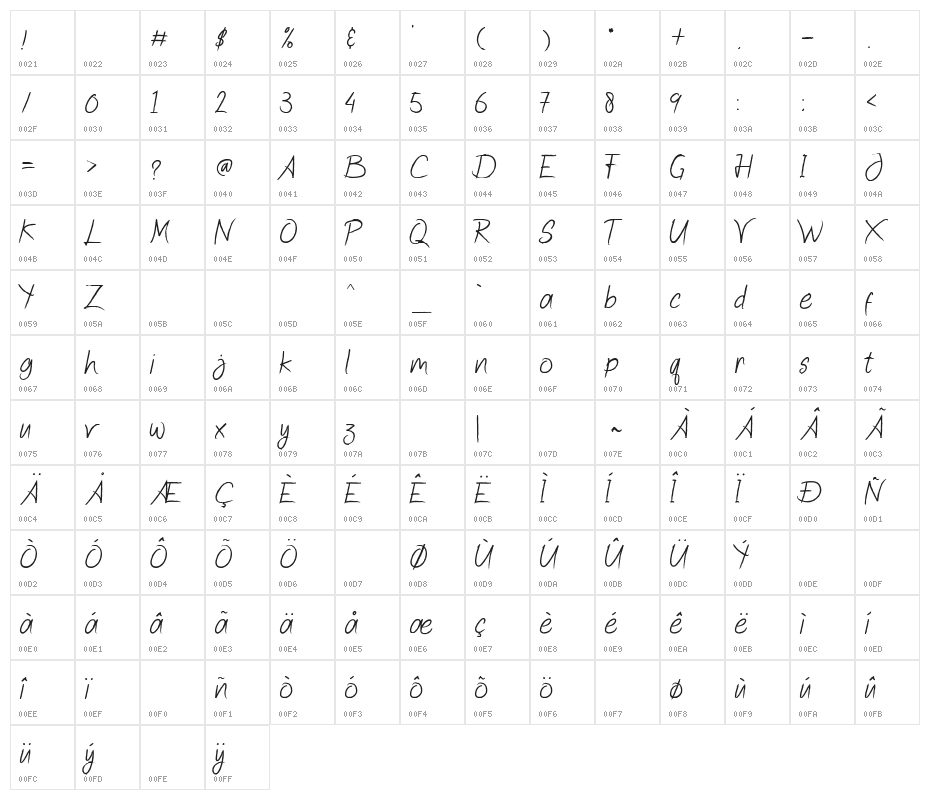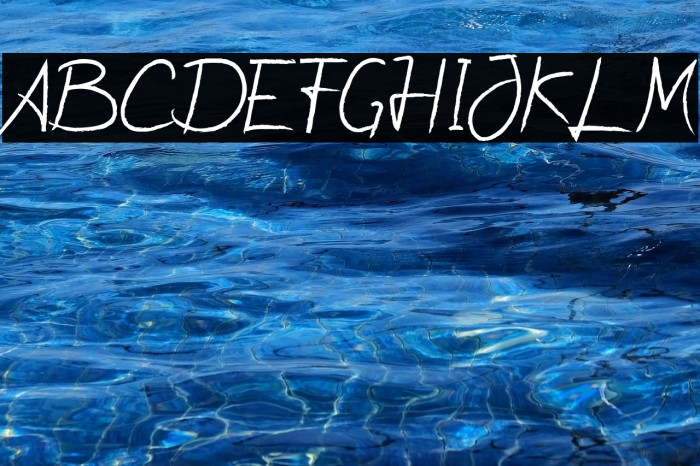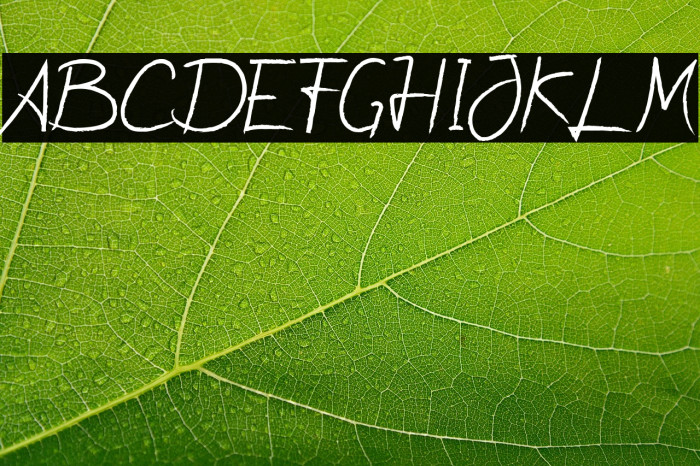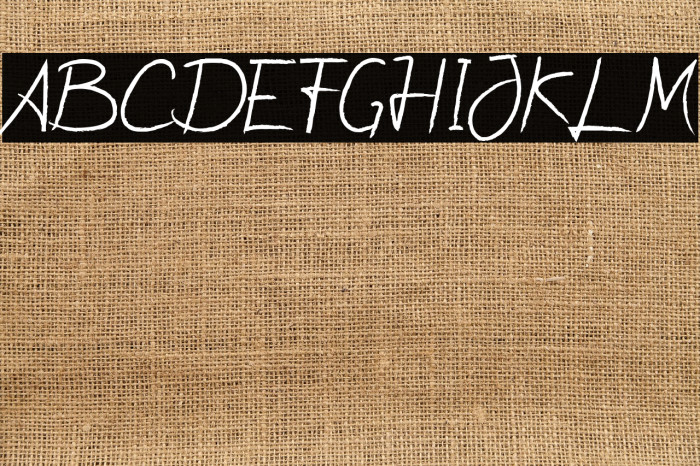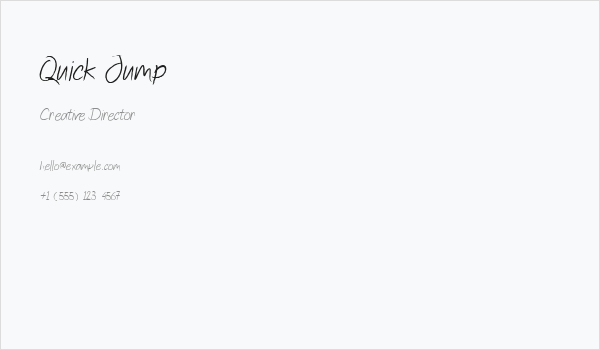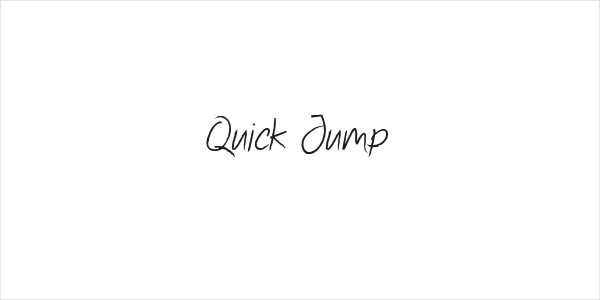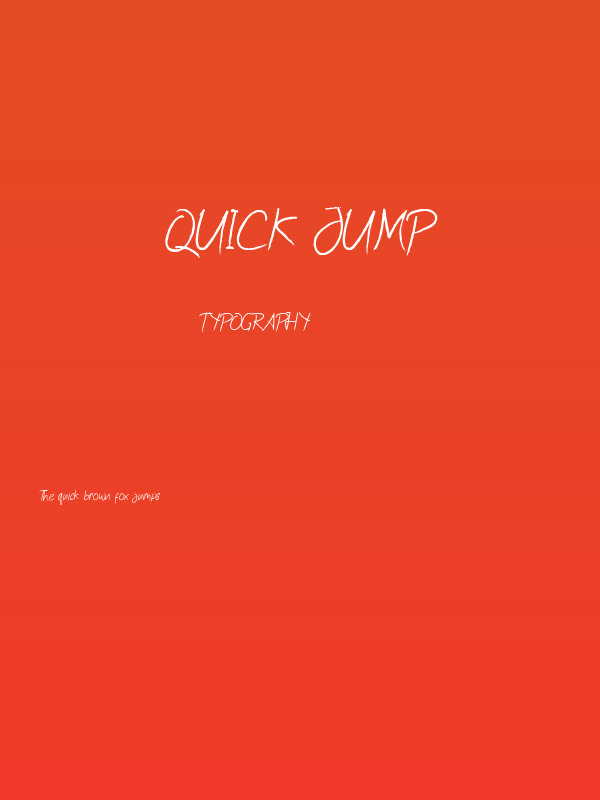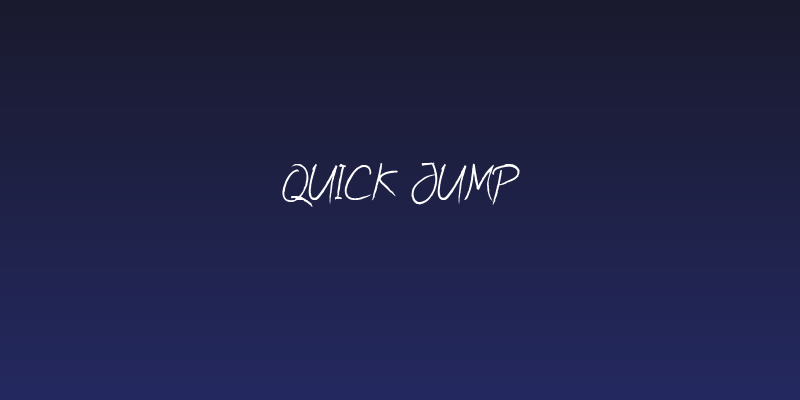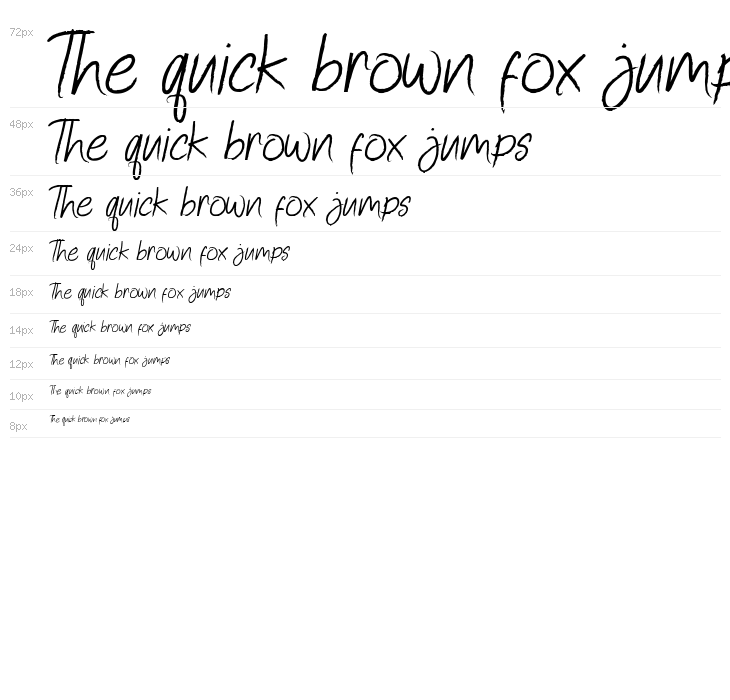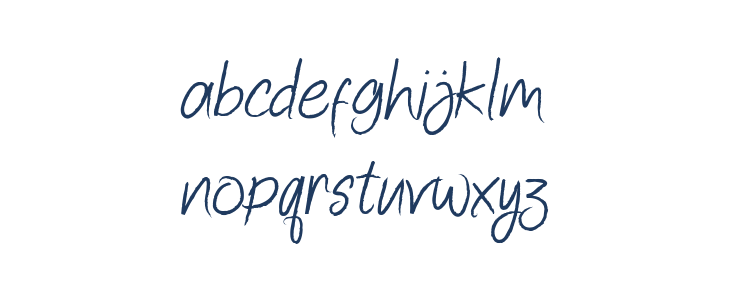
Quick Jump Font
Quick Jump Description
This font exhibits a dynamic and expressive handwritten style, characterized by its fluid and slightly irregular strokes. The uppercase letters are tall and slender, with a noticeable slant that adds a sense of movement and energy. The lowercase letters maintain a consistent flow, complementing the uppercase with their rounded forms and occasional loops. Numbers are clear and legible, matching the overall aesthetic with their slightly playful curves. Special characters are well-integrated, maintaining the font's cohesive look. The overall impression is one of creativity and spontaneity, making it suitable for projects that require a personal touch.
| Use Case | Logos, Headlines, Artistic projects |
| Proposed Projects | Ideal for creative projects like invitations, greeting cards, personal branding, and artistic posters. |